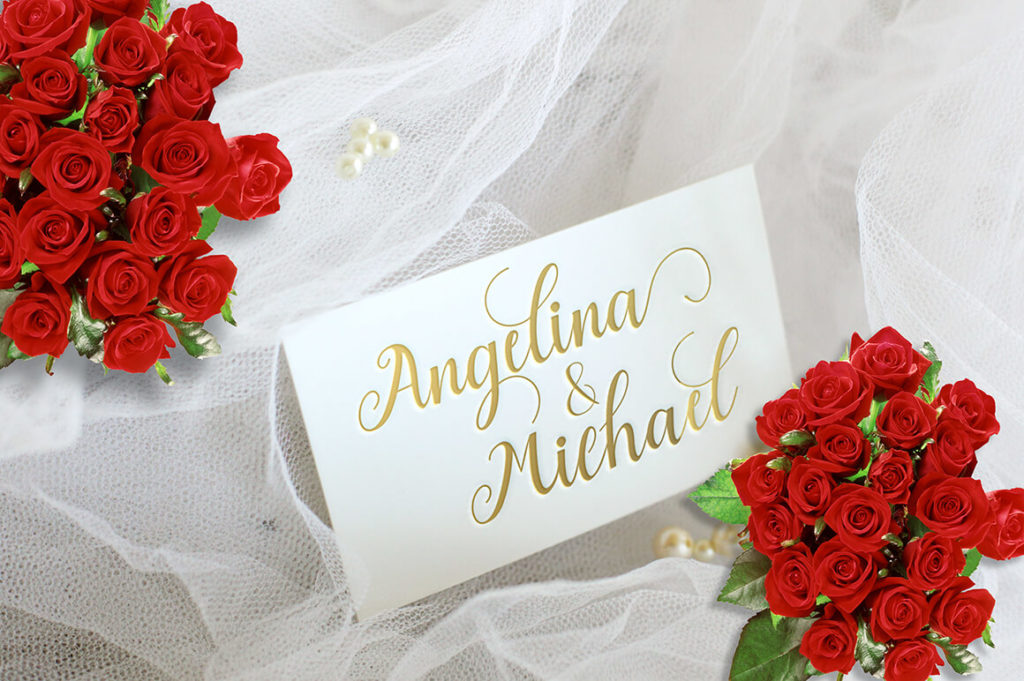
Angelina Font
Introducing Angelina! It is designed and shared with the aid of font bundles, this is a top class font, are sold on font bundles, but it was great, it is unfastened nowadays. Angelina is a brand new fresh & present day script with a handmade calligraphy style, decorative characters, and a dancing baseline! Stunning on invites together with greeting playing cards, branding substances, business cards, rates, posters, and greater!!